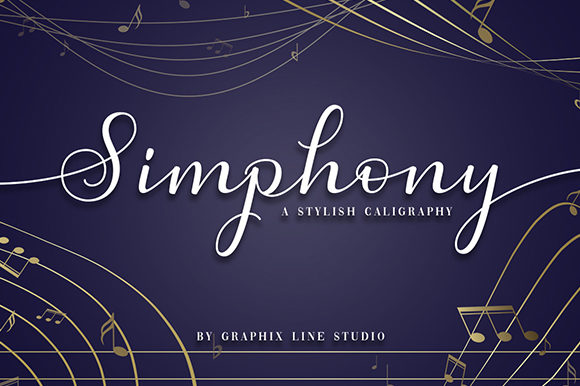
Journey into the realm of elegance and charm with Simphony Font, a mesmerizing handwritten font crafted by Graphix Line Studio. Each letter dances upon the page, exuding a touch of whimsical brilliance that captivates and entrances. Simphony is not just a font; it's an invitation to embark on a creative odyssey, where your designs blossom into masterpieces that leave a lasting impression.
With its graceful curves and enchanting flourishes, Simphony Font possesses an innate ability to transform ordinary words into breathtaking works of art. Whether you're a seasoned designer or just starting your creative voyage, Simphony will guide you effortlessly, adding a touch of magic to every project you undertake.
Imagine the allure of wedding invitations adorned with Simphony's delicate strokes, carrying the promise of love and forever. Envision the allure of branding materials that exude sophistication and leave an indelible mark on your audience. Simphony Font is the secret ingredient that elevates your designs, making them resonate with emotion and capturing hearts.
Dive into the limitless possibilities that await with Simphony Font. Its versatility knows no bounds, seamlessly flowing from elegant wedding invitations to playful social media posts. Unleash your imagination and let Simphony guide you to creative heights you never thought possible.
Join the ranks of discerning designers who have embraced the beauty of Simphony Font. Its enchanting aura and magical feel will cast a spell on your audience, leaving them breathless with admiration. Step into the realm of creative brilliance and experience the transformative power of Simphony Font today.